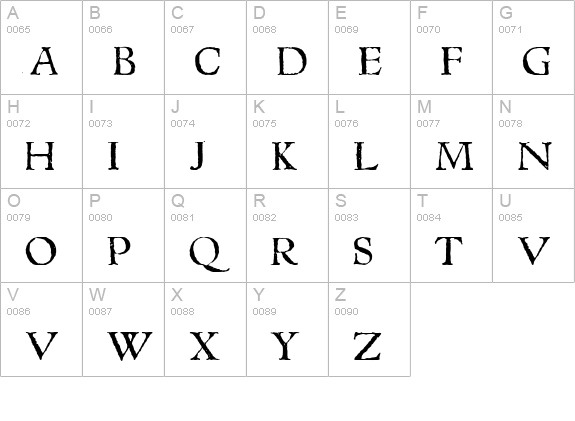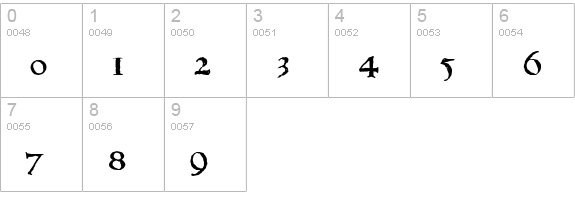
1543HumaneJenson Normal is the standard, neutral variant in the 1543HumaneJenson typeface family \xE2\x80\x94 well suited to general body text, paragraphs, and standard typographic work.
1543HumaneJenson Normal font is a classic and elegant typeface that exudes sophistication and timeless charm. Its clean lines and balanced proportions make it ideal for a wide range of design projects, from branding to editorial design. With its versatility and readability, 1543HumaneJenson Normal font is perfect for conveying a sense of professionalism and refinement. The best part is that 1543HumaneJenson Normal font is available for free download at FontsMarket.com. This means you can easily access and use this beautiful typeface in your projects without any cost. Don't miss out on the opportunity to enhance your designs with this exquisite font that will elevate your work to the next level. Download 1543HumaneJenson Normal font today and bring a touch of elegance to your creations.